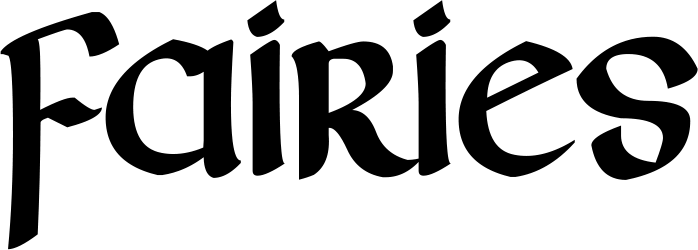
Fairies Font
Designed byHawtpixel
Are you after a gothic font for your text design? If yes, Fairies can be a great chance for you. This epic fantasy font comes with semi-bold letters and works faultlessly for posters, movies, apparel, and more. Bear in mind that this case doesn’t support uppercase letters. Check out RB to get hundreds of beneficial products.